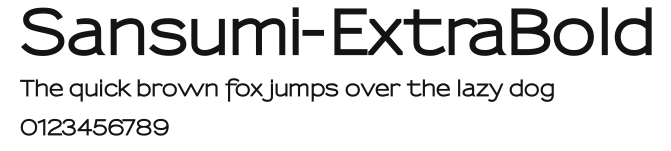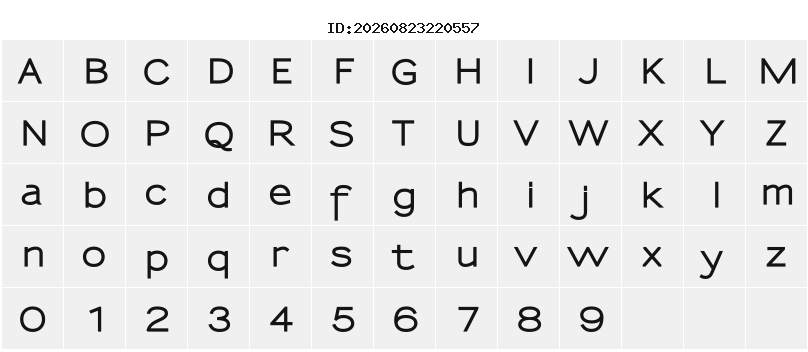
Sansumi-ExtraBold Preview
• Font Name: Sansumi-ExtraBold
• Full Font Name: Sansumi-ExtraBold
About Sansumi-ExtraBold.ttf
Sansumi-ExtraBold.ttf is a modern, elegant sans-serif font designed for ultimate readability and visual harmony. Perfect for branding, headlines, web design, and print materials.